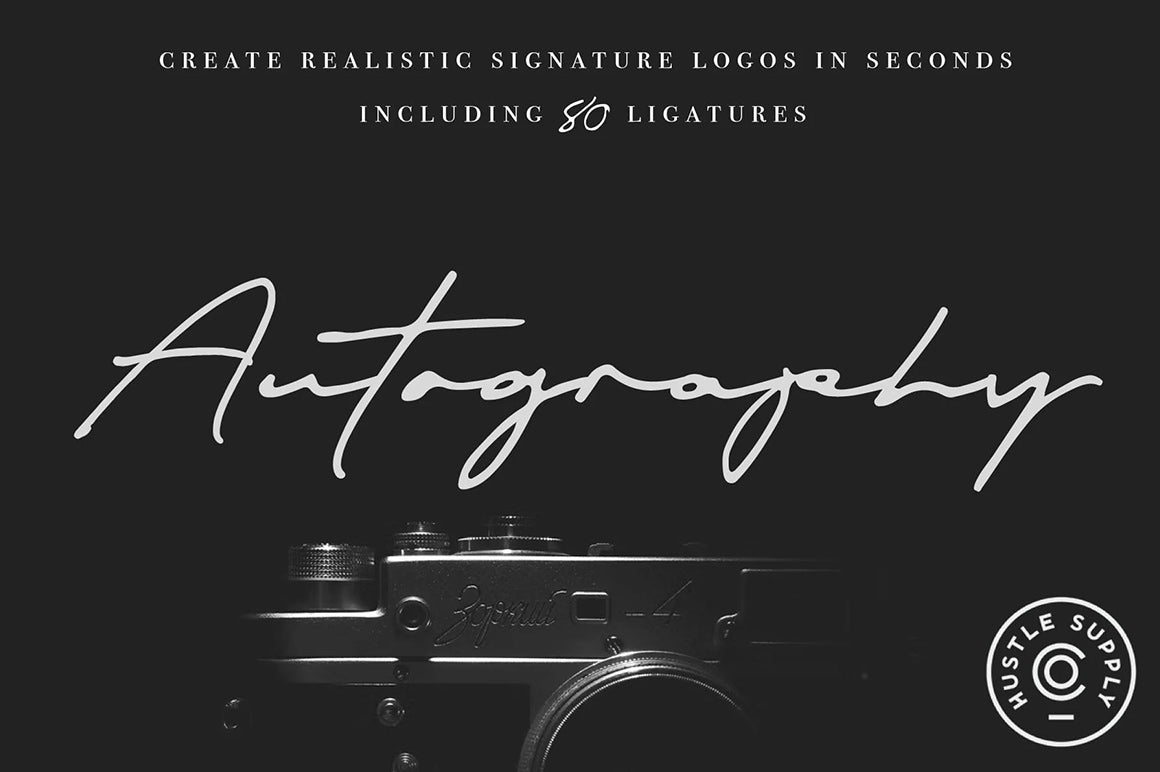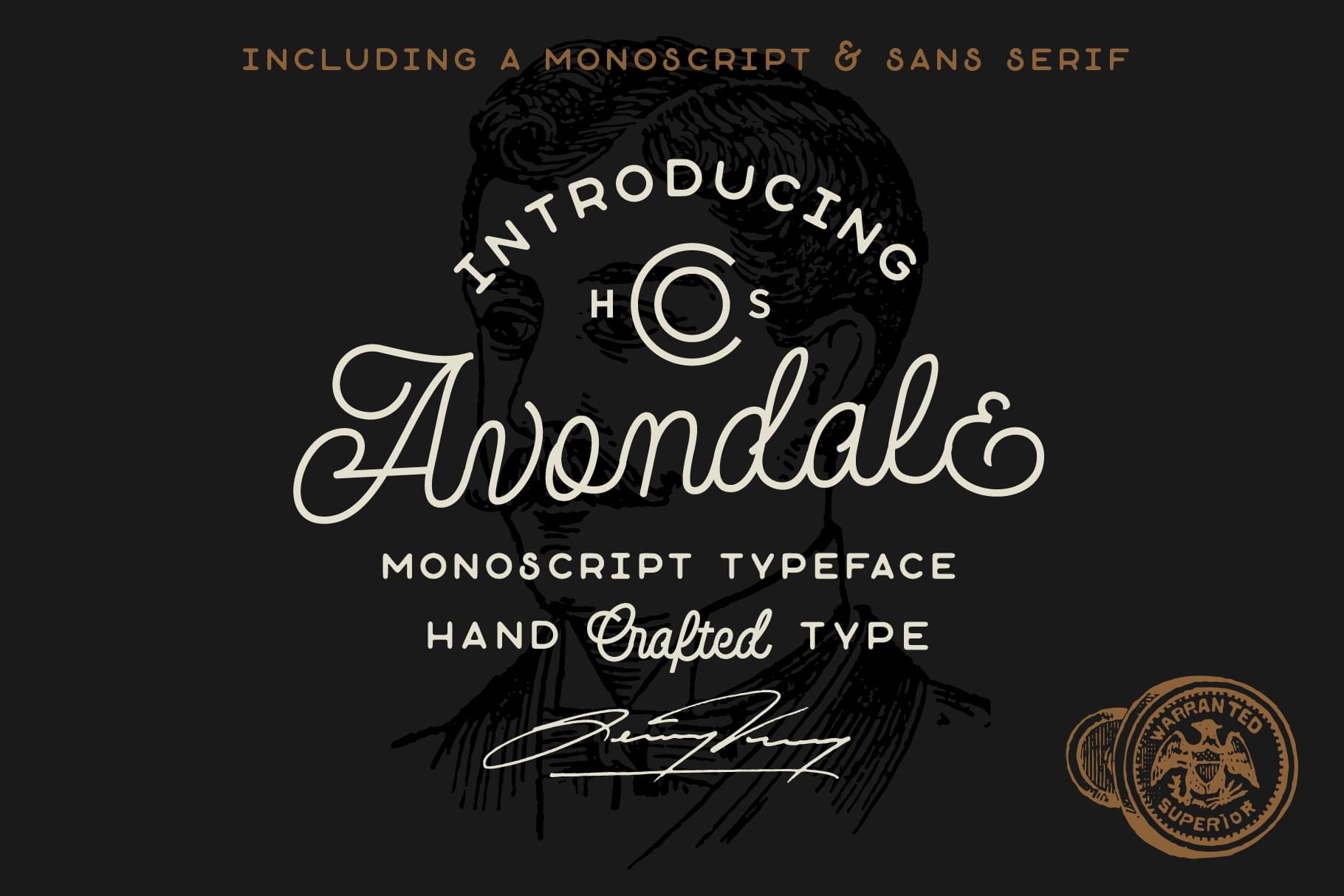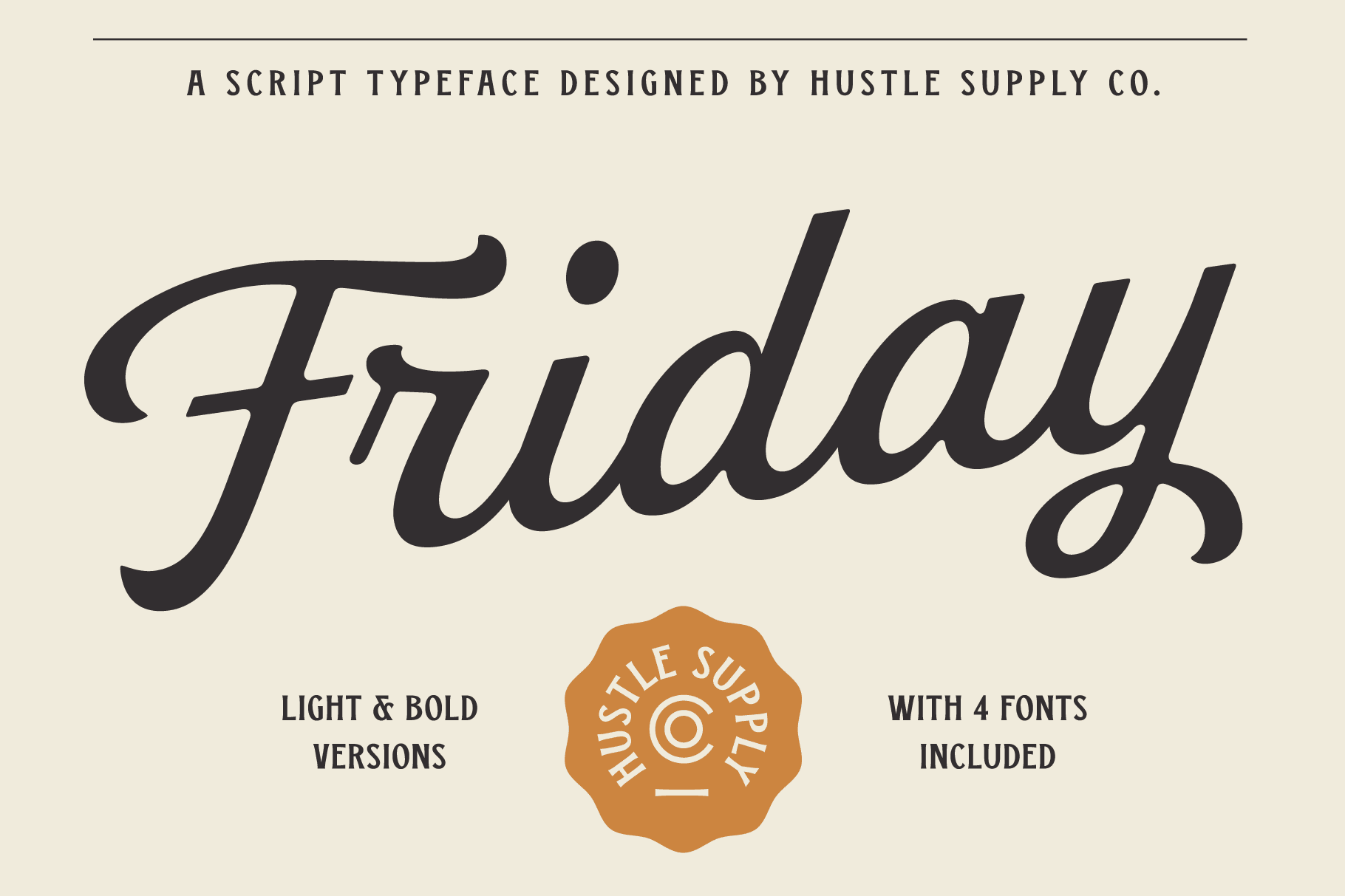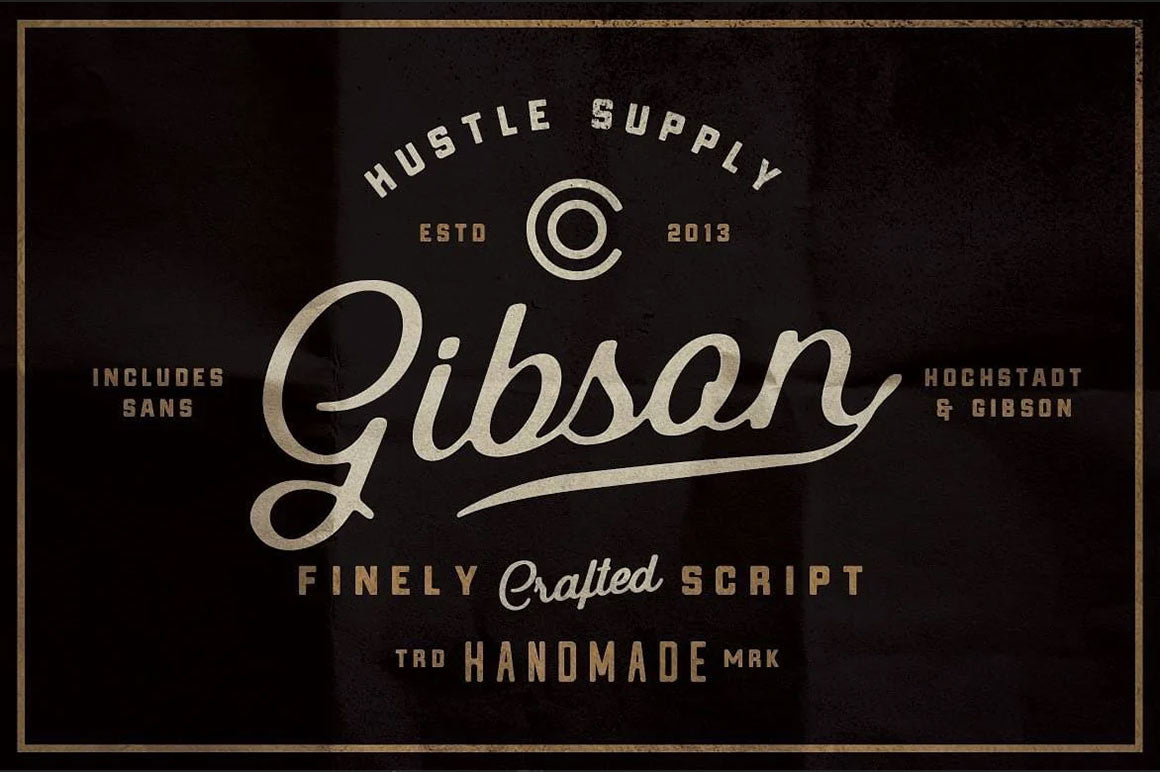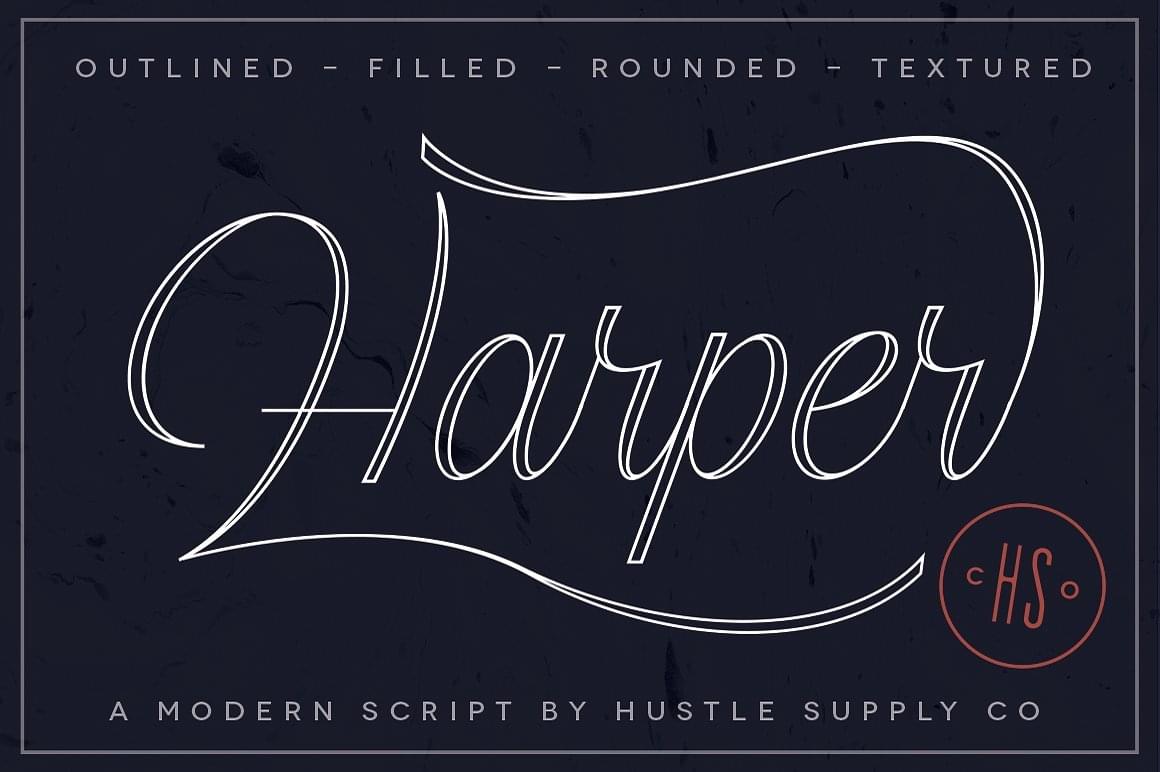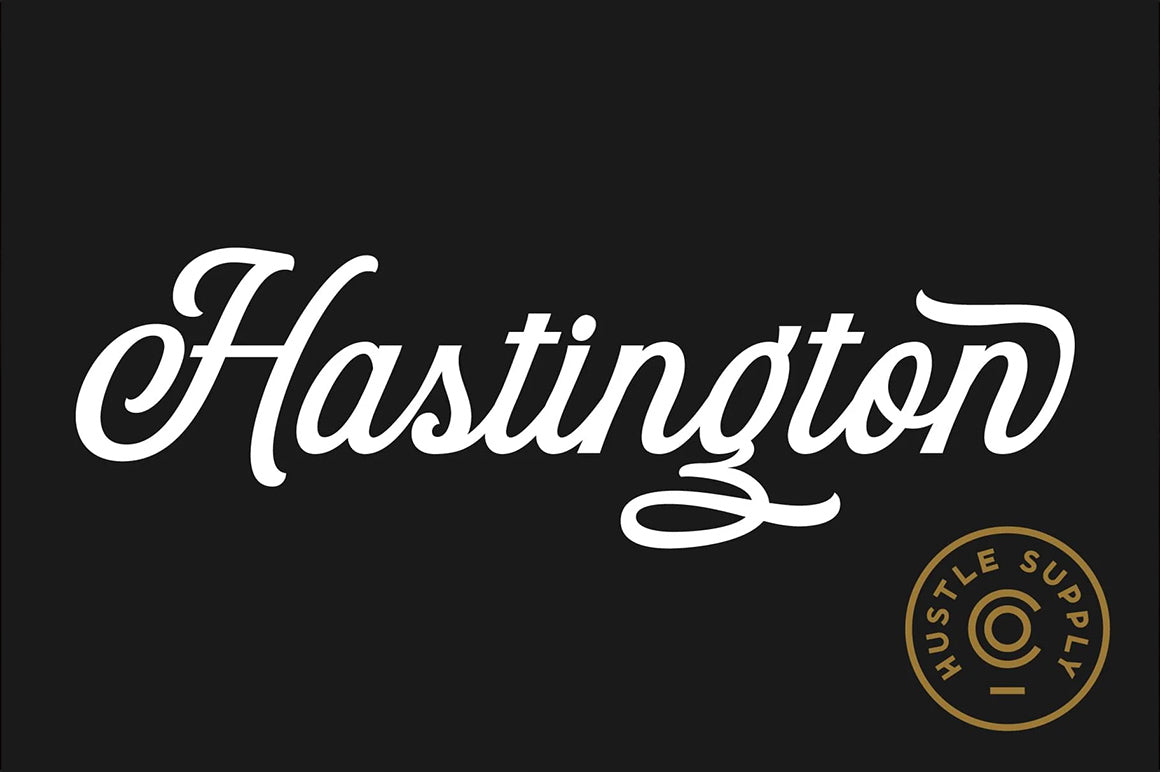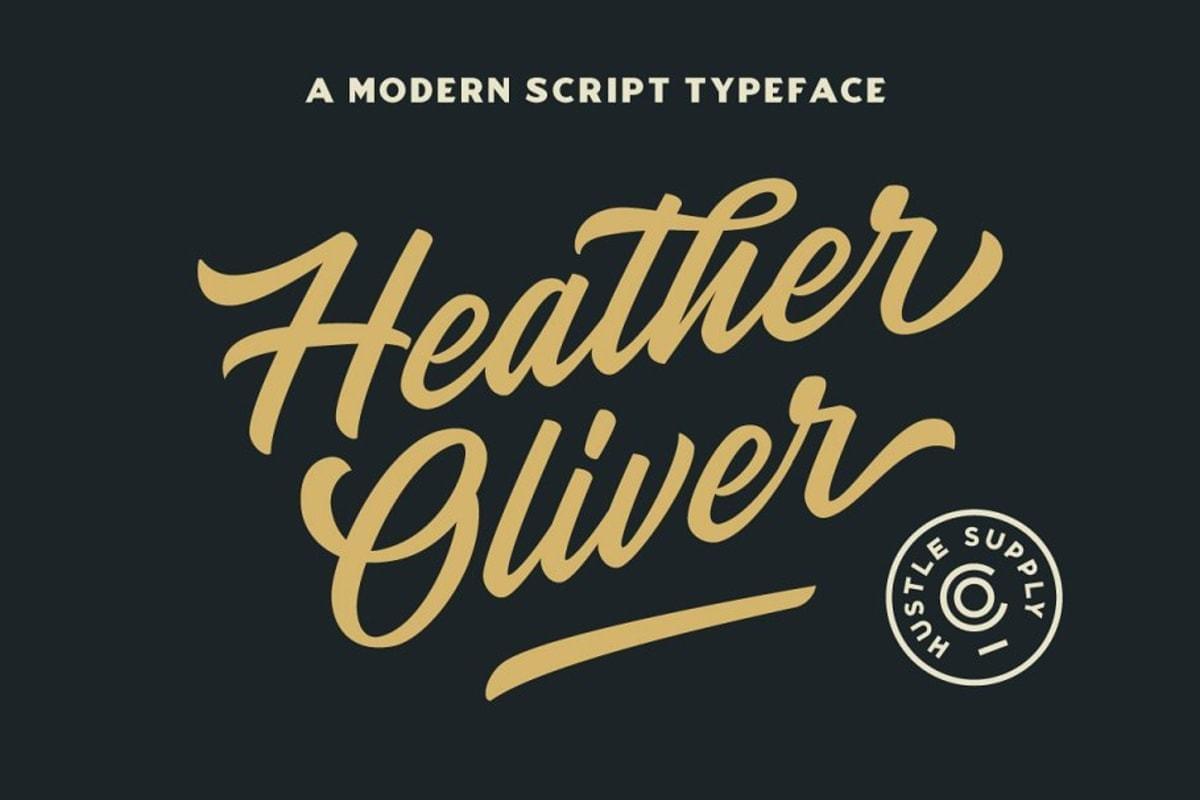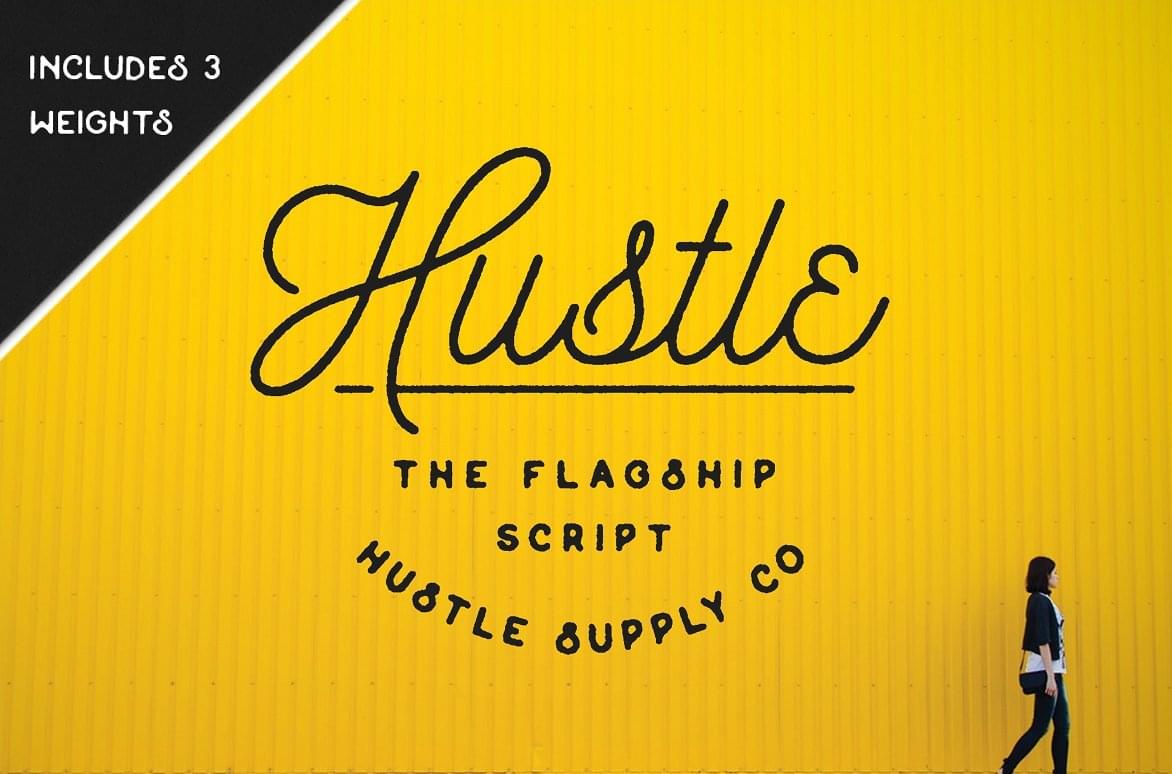
The Ultimate Vintage Script Font Collection
This is the most comprehensive, high-quality script bundle that Hustle Supply Co. has ever released.
The possibilities are endless, whether you're creating a logo, promotional materials, or merchandise.
• 13 typefaces created by Hustle Supply Co.
AUTOGRAPHY
Autography is a handwritten signature typeface with 80 ligatures! Create signature logos in seconds with this versatile typeface. Get 6 OTF font files included. (Regular, Bold, Super Bold + Oblique versions of each).
AVONDALE FONT DUO
This font duo, Avondale Monoscript and The Great Outdoors Mono-sans serif is a great addition to your font library! It inspires a minimalist handcrafted aesthetic that pairs so well with monoline illustrations.
BLACKSTONE SCRIPT
Blackstone Script is a clean ultra-versatile script font that comes with 2 texture treatments. This is a typeface that works perfectly to convey a vintage aesthetic. If you're looking for a go-to script font for restaurants, bars, menus, apparel, badges, etc. you've come to the right place.
FRIDAY SCRIPT
Friday Script is a vintage-inspired script typeface that takes inspiration from sign painting, baseball, restaurant branding and more. With a variety of swashy characters, you can really make Friday Script feel personalized for your client's project. Create headlines, logos, apparel designs and more with this versatile script font!
GIBSON SCRIPT
Gibson Script is an old time inspired script typeface that pairs perfect with bold, tough type. Absolutely awesome for labels & logos and perfect for use in anything from branding, web, packaging, etc.
HARPER SCRIPT
Harper Script is a modern script typeface. Using the outline as the foundation, Harper was created originally as an outlined script typeface. I thought that this would be a fitting typeface for the popular 'line illustrations' that have been coming out more frequently. Harper isn't just an outlined typeface, it comes in 5 Weights in total. As clean and elegant as it is, I also wanted to include a textured 'letterpress' effect as I can see this being used for many different aesthetics, from wedding invitations to apparel and logo design.
HASTINGTON SCRIPT
Hastington is a script typeface with a timeless classic style that is perfect for your next branding project. This product includes 3 styles (Regular, Rounded, Texture). Hastington comes loaded with tons of extra characters to help personalize each word.
HATFIELD PARK
Hatfield Park is a vintage inspired script typeface that comes loaded with tons of alternate characters and swashes. With 327 glyphs, tons of alternates, ligatures, swashes and extra characters, you'll have so many combinations to play with. Hatfield Park also comes with Regular, Rough & Stamp weights to give you even more options.
HEATHER OLIVER
This versatile script typeface includes many different alternates for each lowercase letter. Making this typeface a swiss army knife in your Font Library. It's extremely fun to use as each word can be transformed to your liking.
This typeface works really well for Logos and Apparel Design. It's also great for creating Prints or Merchandise, as you can use the illustrative qualities of the shapes to create an art piece.
HUSTLE SCRIPT
After months of work, Hustle Script is finally ready to be released. Hustle Script is a mono-weight script typeface that includes 3 weights; Light, Regular, Bold. It doesn't take much to make this typeface look great in a project. It's a new tool at your disposal that gives you that hand lettered one pass look that many people love.
PORTRAIT SCRIPT
Portrait is a handwritten signature script with a natural & stylish flow. This collection of scripts is perfect for personal branding. It was made with the intention to be used by Photographers as a watermark for their Photography Business - Hence the name, 'Portrait'. But, this works well for many applications. Everything from personal branding & wedding invitations to advertising could benefit from this collection of signature fonts.
THE BOUTIQUE CURSIVE
This typeface is a hand drawn, vintage inspired athletic display font. This typeface was drawn on grid paper, scanned and vectorized in illustrator. The roughness and imperfections vary slight for each letter, giving your project an authentically handcrafted look.